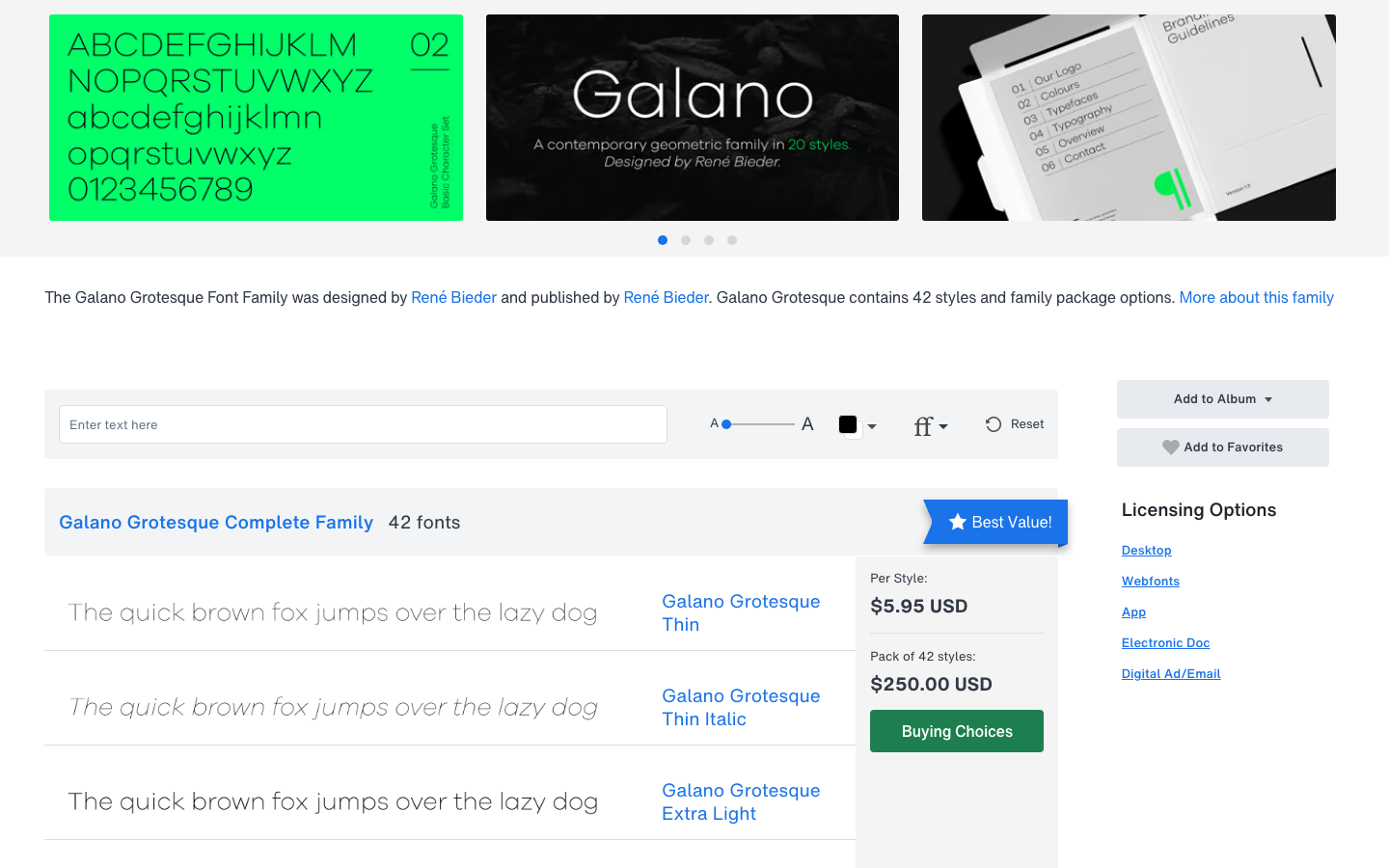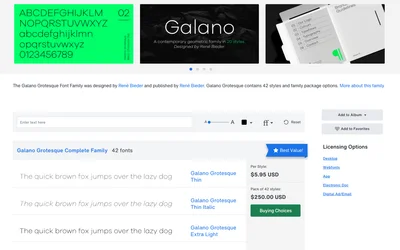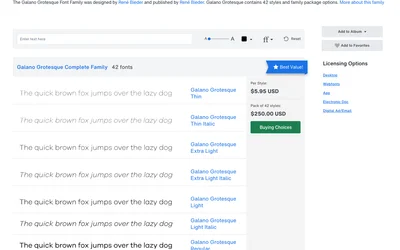
Galano Grotesque vs Montserrat Alternates
Montserrat Alternates is a popular open-source alternative to Galano Grotesque's geometric design. At 70% similarity, Montserrat Alternates delivers a modern, creative aesthetic. Compare which works better for branding and ui projects.
| Feature | Galano Grotesque | Montserrat Alternates |
| Weights | Multiple | 100, 200, 300, 400, 500, 600, 700, 800, 900 |
| Language Support | latin, latin-extended | latin, latin-extended, cyrillic, cyrillic-extended, vietnamese |
Consider: Galano Grotesque
- Shares Galano Grotesque's modern character
- 9 weight options for flexible typography
- Supports 5 scripts including cyrillic and cyrillic-extended
- Delivers a modern, creative, distinctive aesthetic
- Popular in enterprise-corporate and financial-services design
Recommended: Montserrat Alternates
- Designed specifically for branding and ui